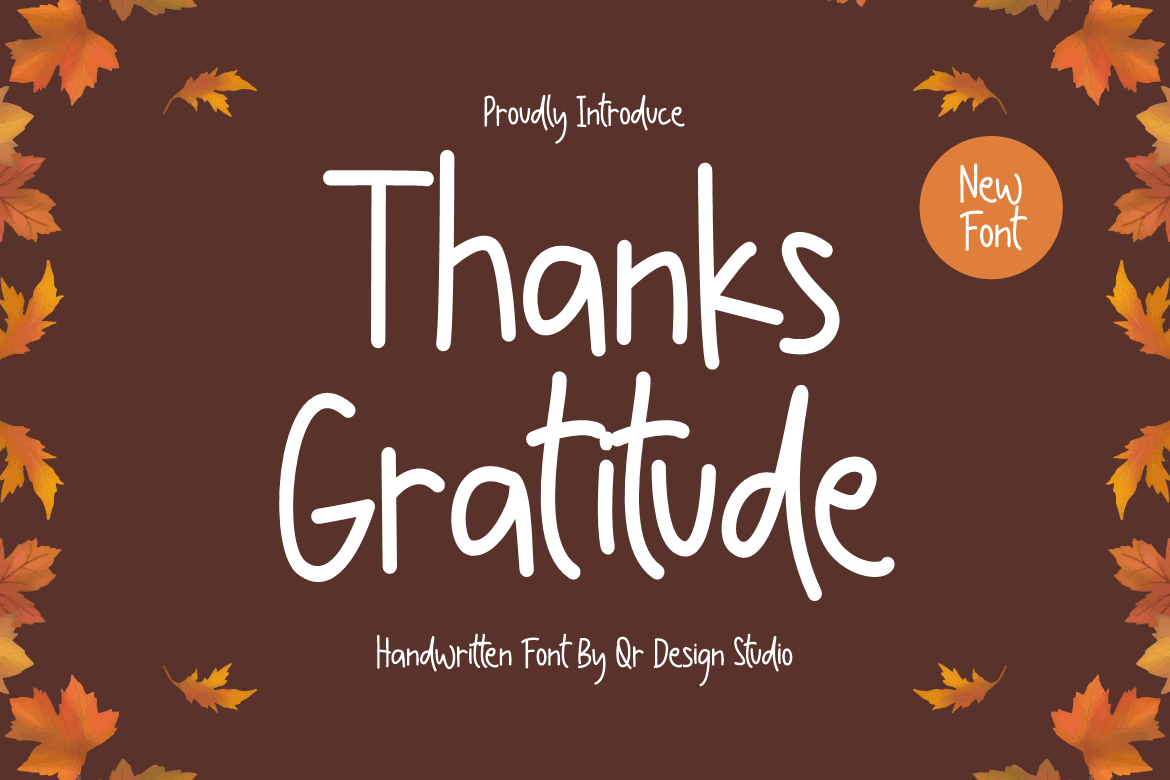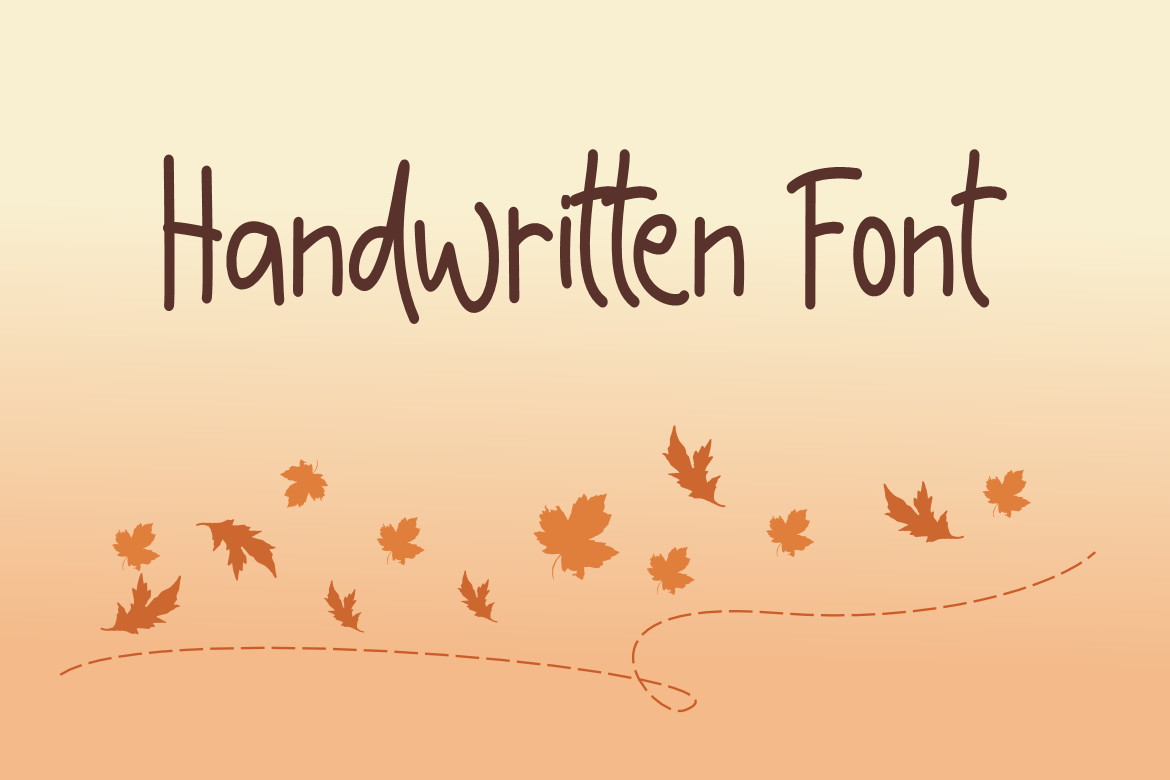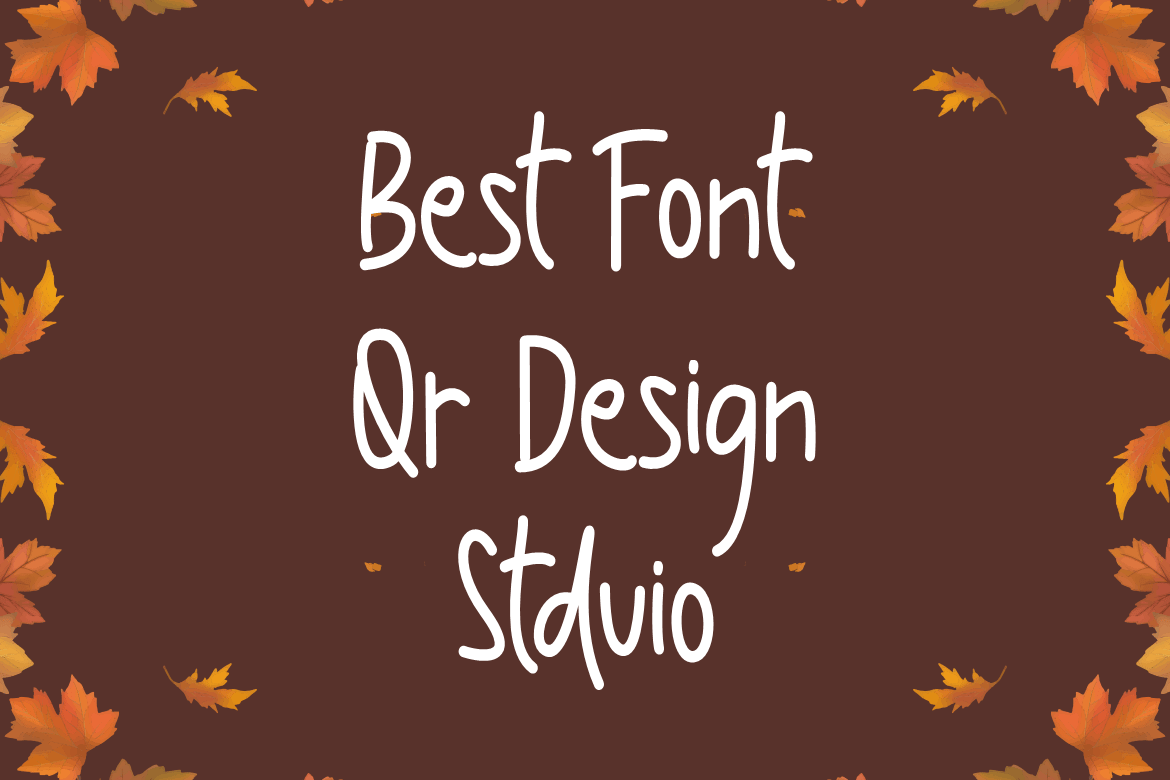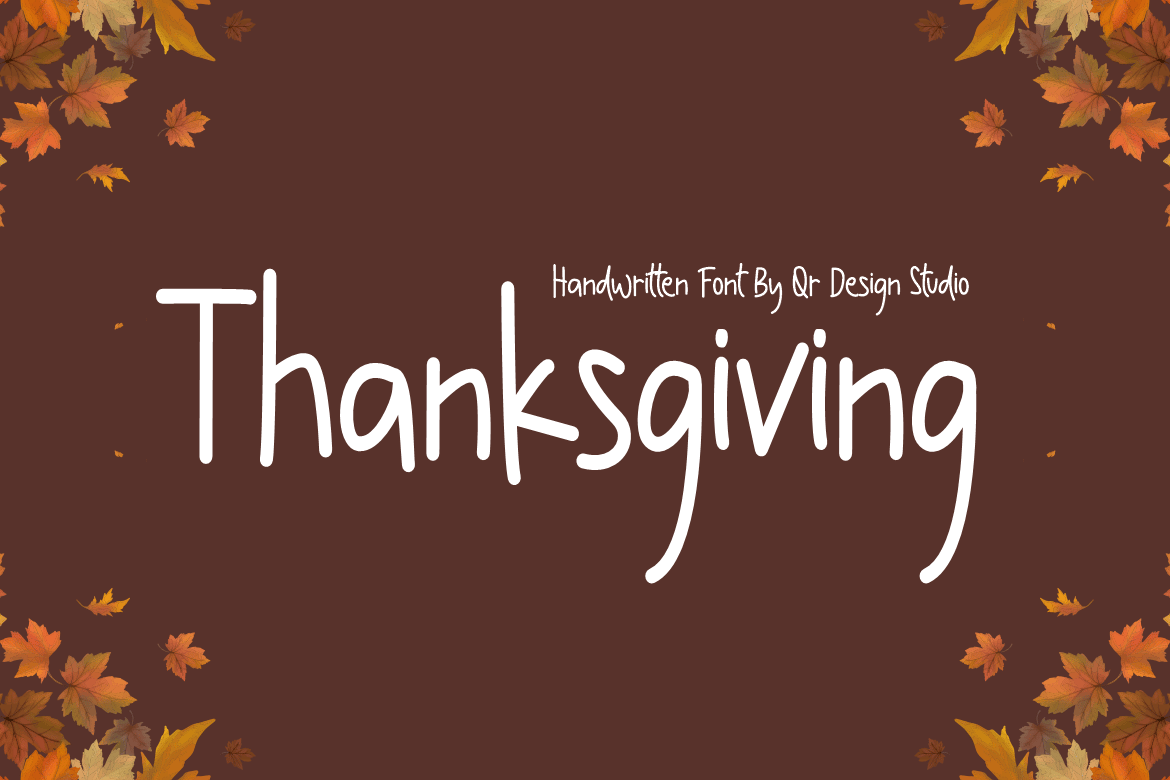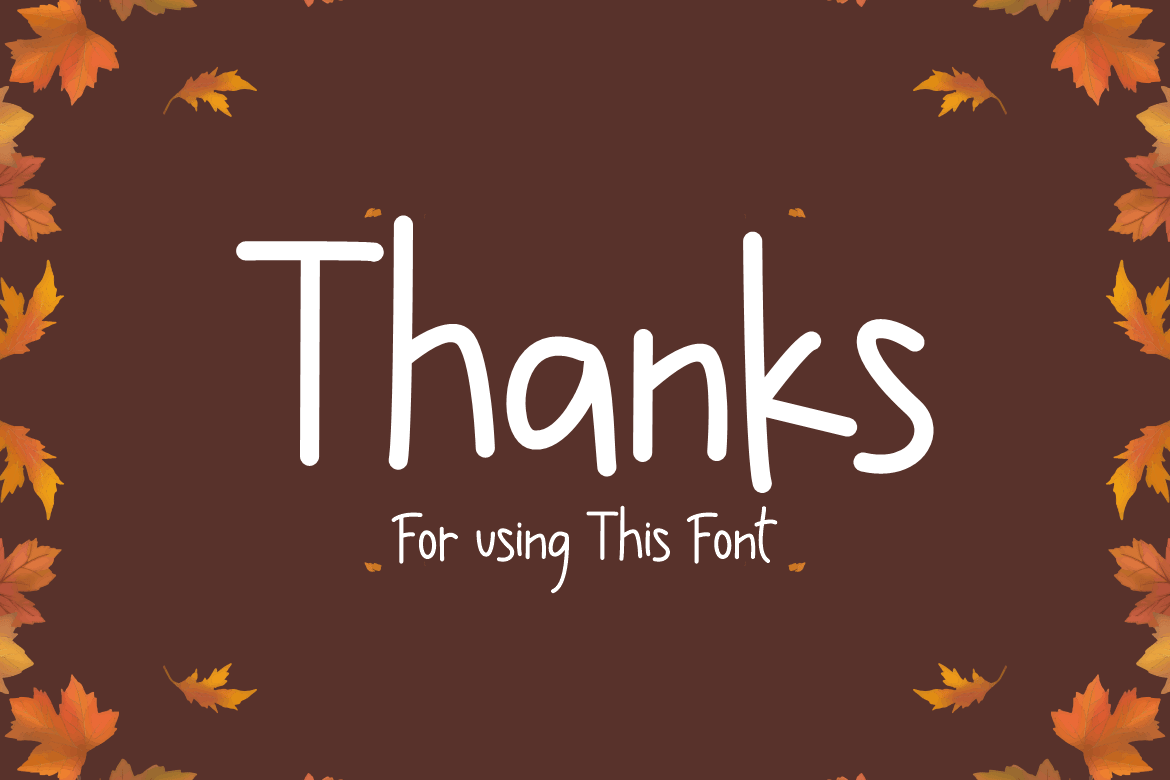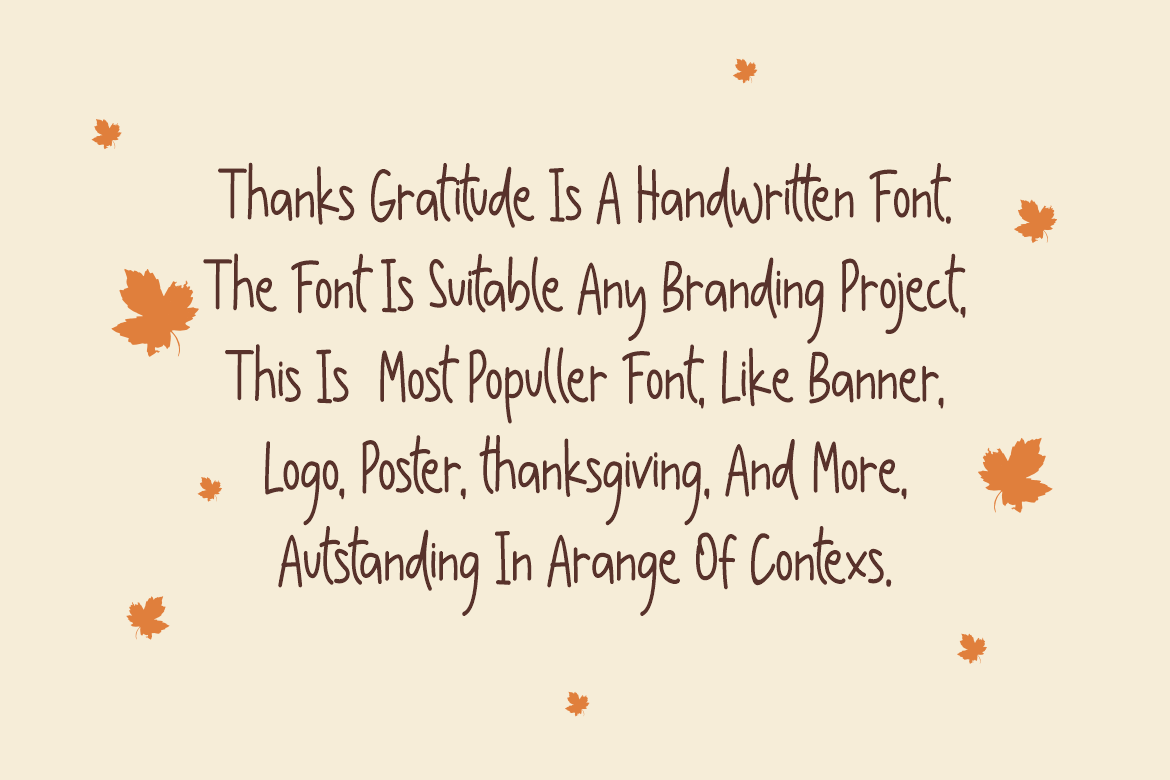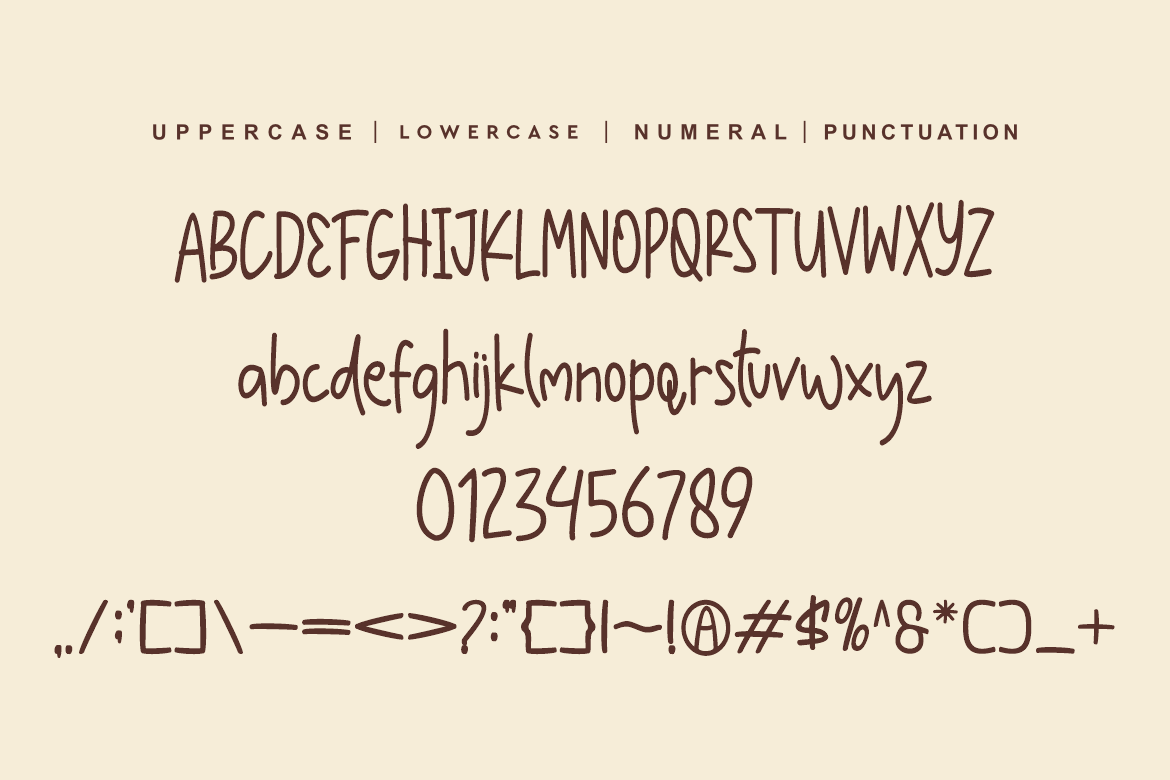
Thanks Gratitude – Thanksgiving Font
Thanks Gratitude – Thanksgiving Font is a bold and authentic display font.
The font is suitable for any branding project like poster, Thanksgiving, logo, sport, and many more.
Outstanding in a wide range of contexts.